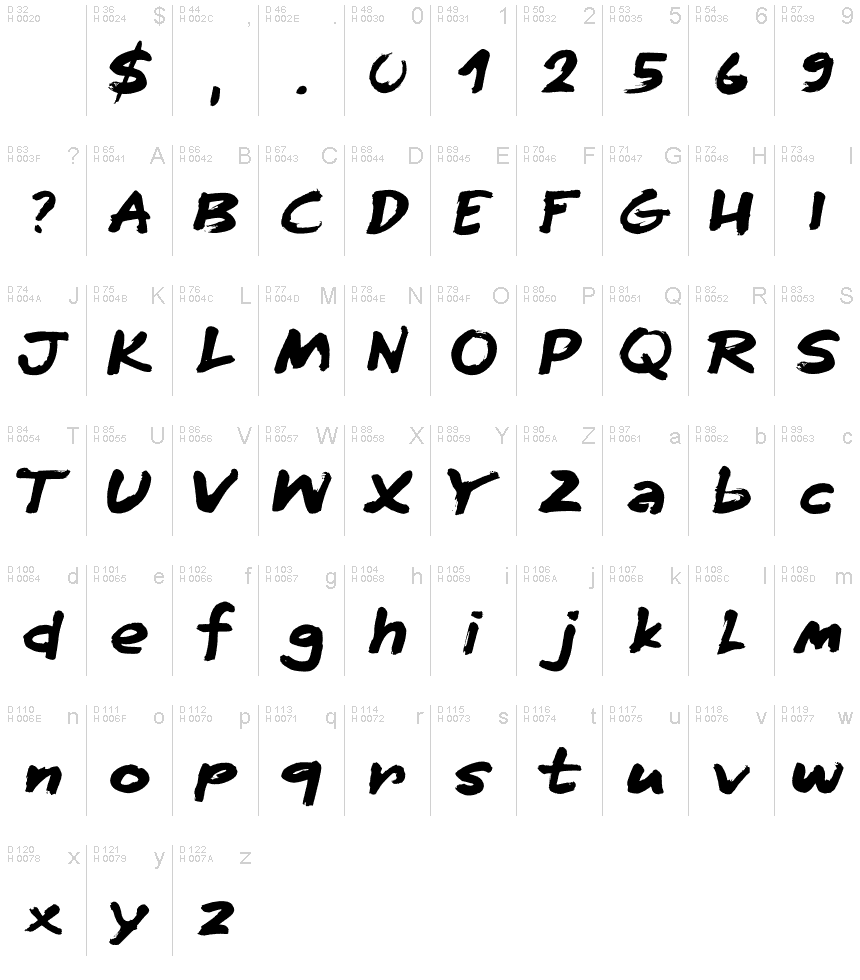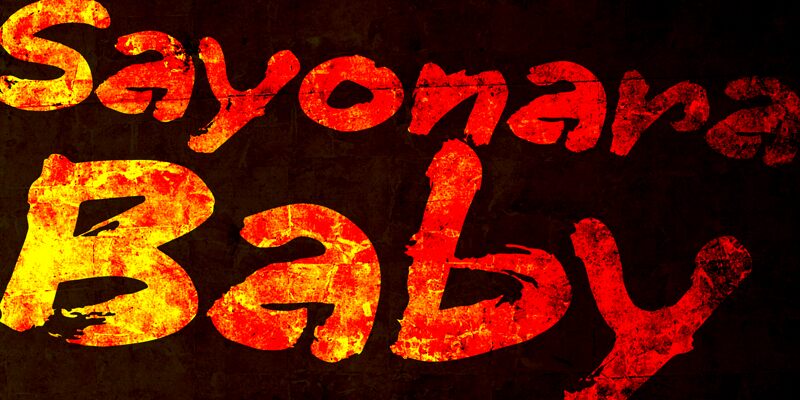
Tokyo Geisha DEMO Regular
Tokyo Geisha is a bold and expressive brush font designed by D K. With its semi-expanded width, this typeface offers a perfect balance between legibility and artistic flair. Tokyo Geisha is an excellent choice for projects that require a touch of Japanese elegance and sophistication, such as branding, packaging, invitations, posters, or even tattoos. Its thick strokes and flowing characters give your designs an authentic hand-drawn look while maintaining readability across various sizes and mediums. Whether you're creating a modern calligraphy piece or adding some personality to your next project, Tokyo Geisha is sure to leave a lasting impression.